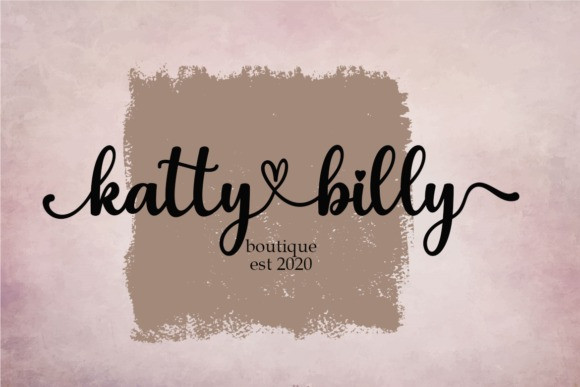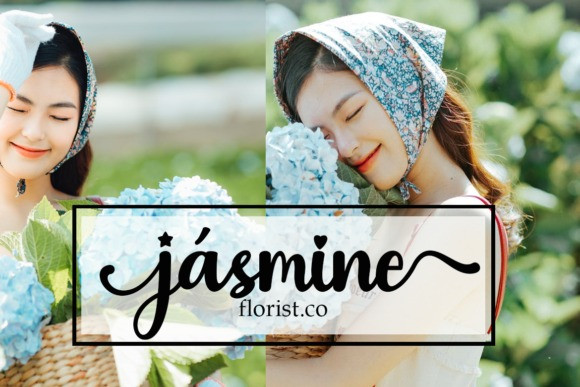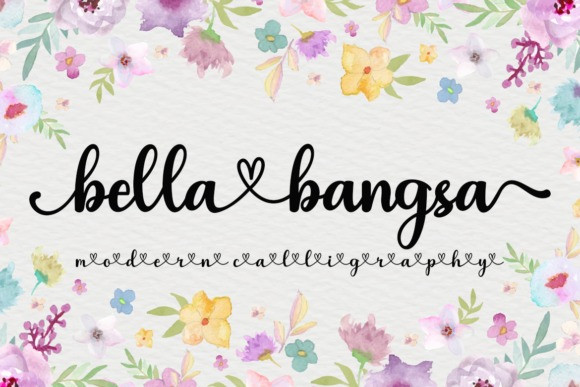
July Seventh
July Seventh Font
The July Seventh font is a stunning font that comes packed with over a 1000 unique handmade glyphs. You may check out the specimen https://www.creativefabrica.com/product/july-seventh/view/specimen/ref/87/ to see everything that is included in this beautiful font.
The July Seventh fonts is not only works fine for text with handwritten better in readability, It also comes stuffed with a lot of extra, PUA encoded bonus characters with beautiful swashes. These swashes offer a mix of regular long swirly lines, swashes ending in little hearts and even swashes ending in decorative flowers.
The July Seventh font will work for any occasion that requires a stunning script. It can be invites, (birthday) cards, personal business cards, design for your store front or menu and much more.